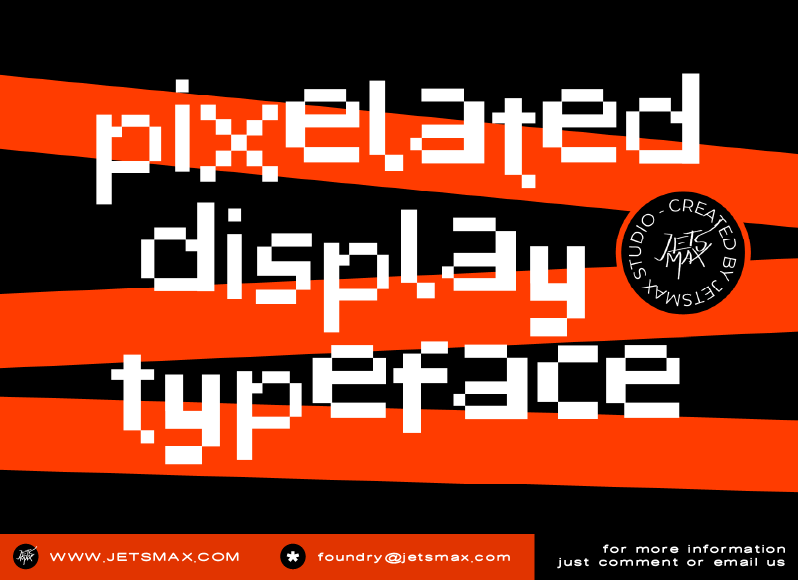
Pixelated Display is a trendy pixel font inspired by a popular game from the 80s. This font will elevate any of your design. Pixelated Font best uses for poster, game text, cover, logo, branding, social media post, advertising and many more! Note: By installing or using this font, you are agree to the Product Usage Agreement: � This is demo version (TTF file) and ONLY for PERSONAL USE. NO COMMERCIAL USE ALLOWED! � Here is the link to purchase commercial license : https://jetsmax.com/pixelated-display/ � For Corporate use you have to purchase Corporate license � If you need a custom license please contact us at : foundry@jetsmax.com � Any donation are very appreciated. Paypal account for donation : https://paypal.me/KhairilAnwar Happy Creation! ----------------------------------------------- FOR SOME FREEBIES CHECK OUT >>> www.jetsmax.com |